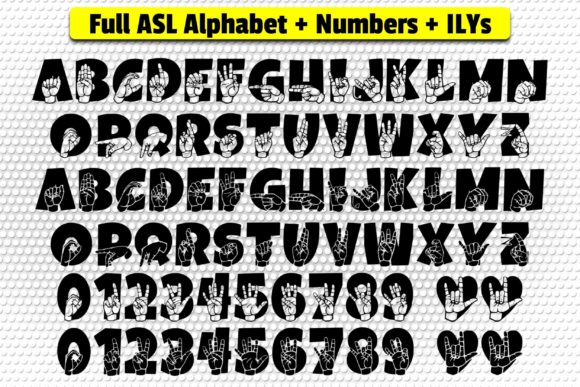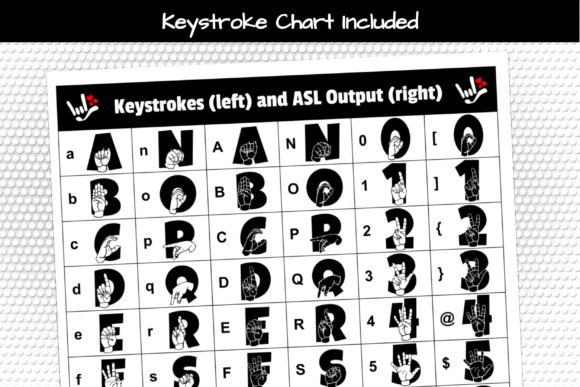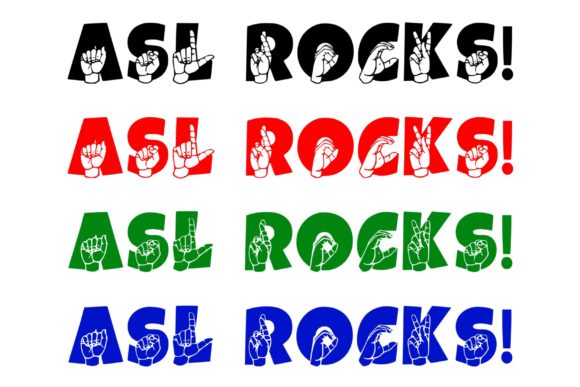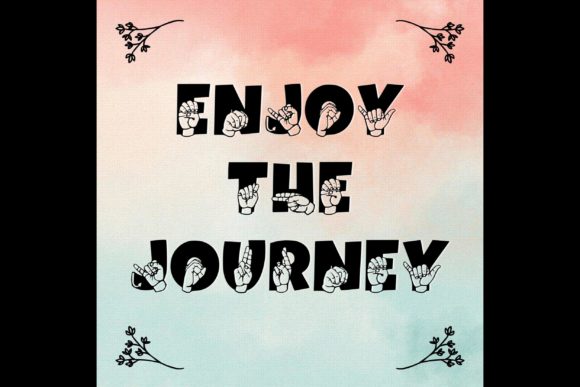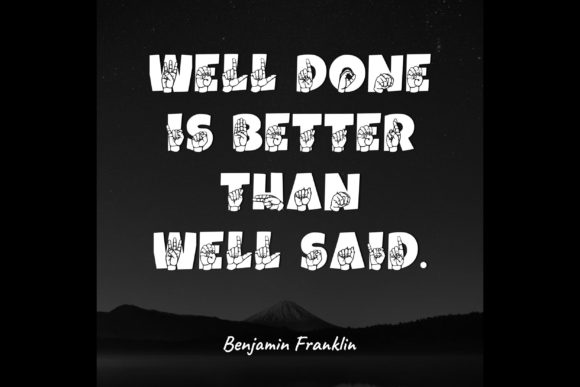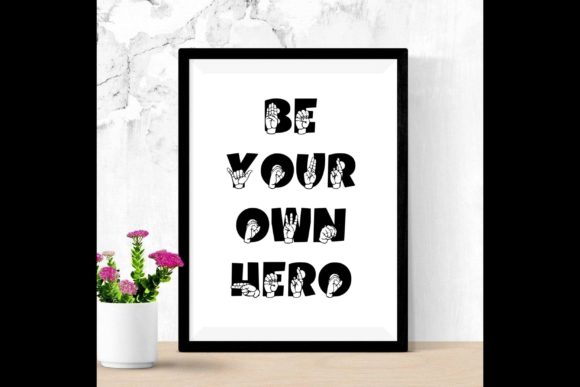
Unlock Endless Design Possibilities with Able Lingo ASL 2 Font
Are you a designer or crafter looking for a unique and versatile font to elevate your creative projects? Look no further than Able Lingo ASL 2, a cool and useful dingbats font that’s perfect for adding a touch of personality to any design. In this article, we’ll explore the features and benefits of Able Lingo ASL 2, and show you how to make the most of this amazing font.
What is Able Lingo ASL 2?
Able Lingo ASL 2 is a dingbats font that offers a wide range of symbols, icons, and graphics that can be used to add visual interest to your designs. The font is carefully crafted to provide a unique and creative way to communicate your message, making it perfect for designers, crafters, and anyone looking to add a personal touch to their projects.
Key Features of Able Lingo ASL 2
- Unique and Creative Designs: Able Lingo ASL 2 offers a wide range of unique and creative designs that can be used to add a touch of personality to your projects.
- High-Quality Vector Graphics: The font is made up of high-quality vector graphics that can be scaled up or down without losing any quality.
- Easily Customizable: Able Lingo ASL 2 is easy to customize, allowing you to adjust the size, color, and style to fit your design needs.
- Wide Range of Uses: The font can be used for a wide range of projects, including food menus, posters, flyers, prints, and more.
Benefits of Using Able Lingo ASL 2
So why choose Able Lingo ASL 2 for your design projects? Here are just a few benefits of using this amazing font:
- Adds Visual Interest: Able Lingo ASL 2 adds a touch of personality and visual interest to your designs, making them stand out from the crowd.
- Saves Time: The font is easy to use and customize, saving you time and effort in your design process.
- Increases Creativity: With its wide range of unique and creative designs, Able Lingo ASL 2 can help inspire your creativity and take your designs to the next level.
- Perfect for Food and Beverage Designs: The font is particularly well-suited for food and beverage designs, such as menus, flyers, and posters.
How to Use Able Lingo ASL 2
Design Ideas Using Able Lingo ASL 2
So what can you create with Able Lingo ASL 2? Here are a few design ideas to get you started:
- Food Menus: Use Able Lingo ASL 2 to create eye-catching food menus that showcase your restaurant’s personality.
- Posters and Flyers: Add a touch of personality to your posters and flyers with Able Lingo ASL 2’s unique and creative designs.
- Prints and Graphics: Use the font to create stunning prints and graphics that showcase your brand’s personality.
- Crafting and Scrapbooking: Able Lingo ASL 2 is also perfect for crafters and scrapbookers looking to add a personal touch to their projects.
In conclusion, Able Lingo ASL 2 is a cool and useful dingbats font that’s perfect for designers, crafters, and anyone looking to add a touch of personality to their projects. With its unique and creative designs, high-quality vector graphics, and ease of use, Able Lingo ASL 2 is a must-have font for anyone looking to take their designs to the next level. So why wait? Download Able Lingo ASL 2 today and explore its endless possibilities!